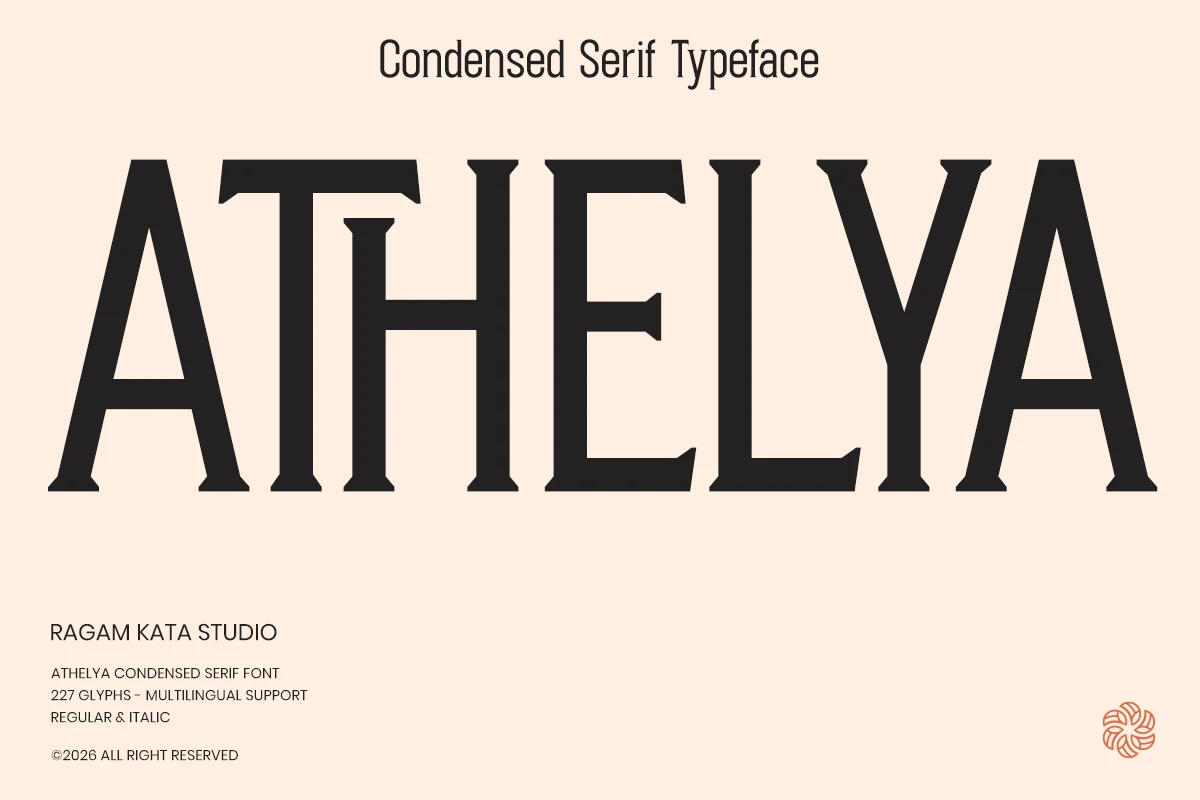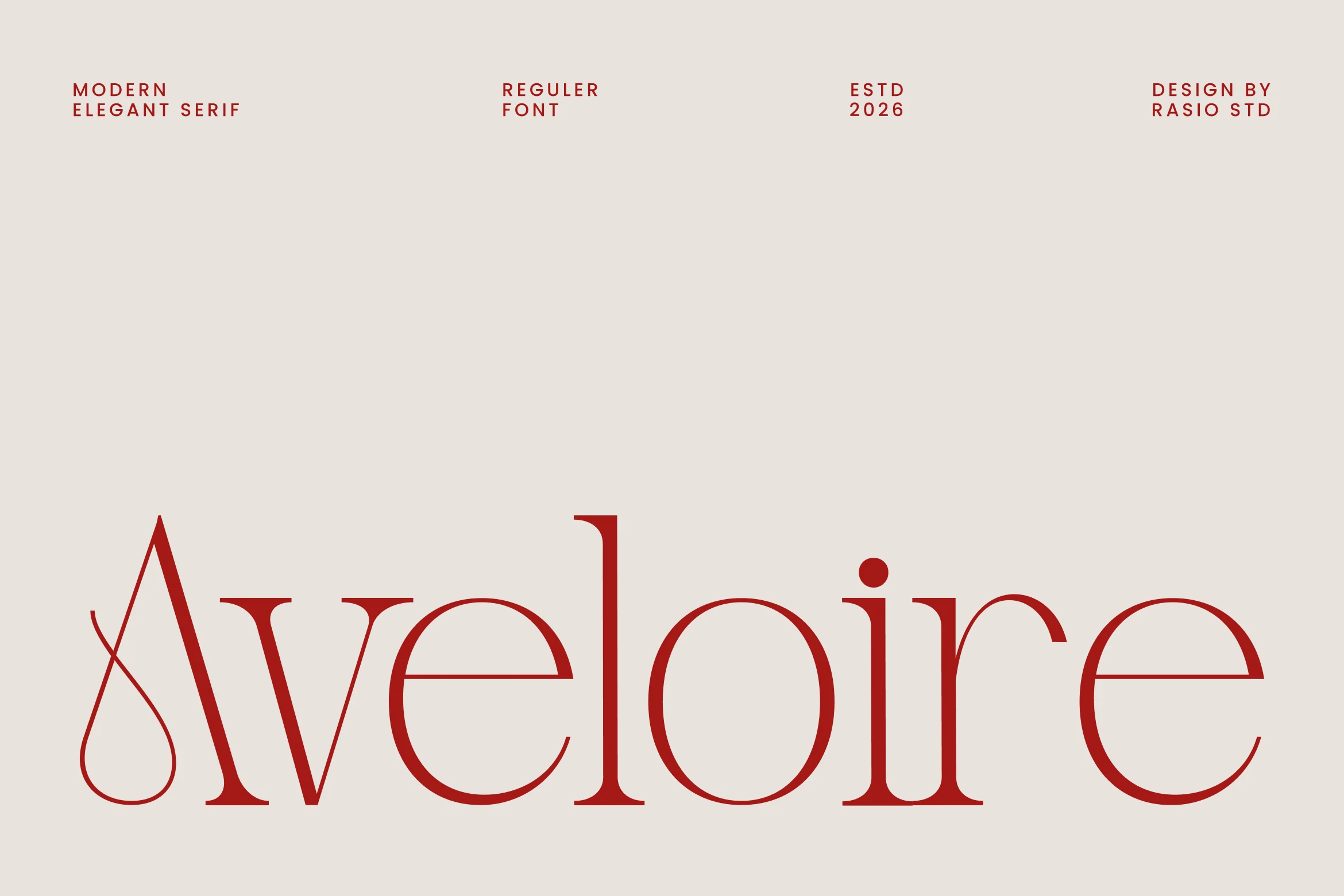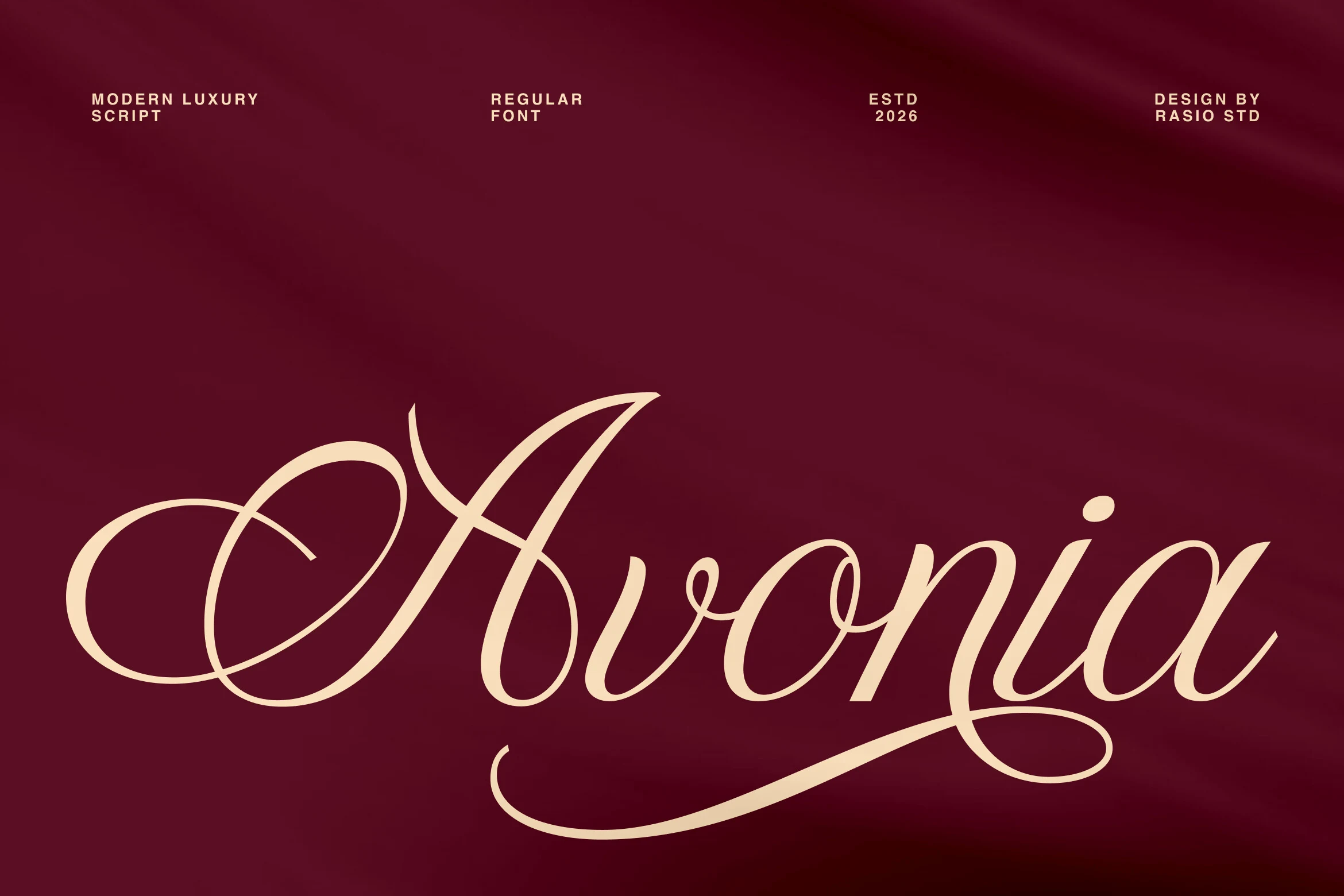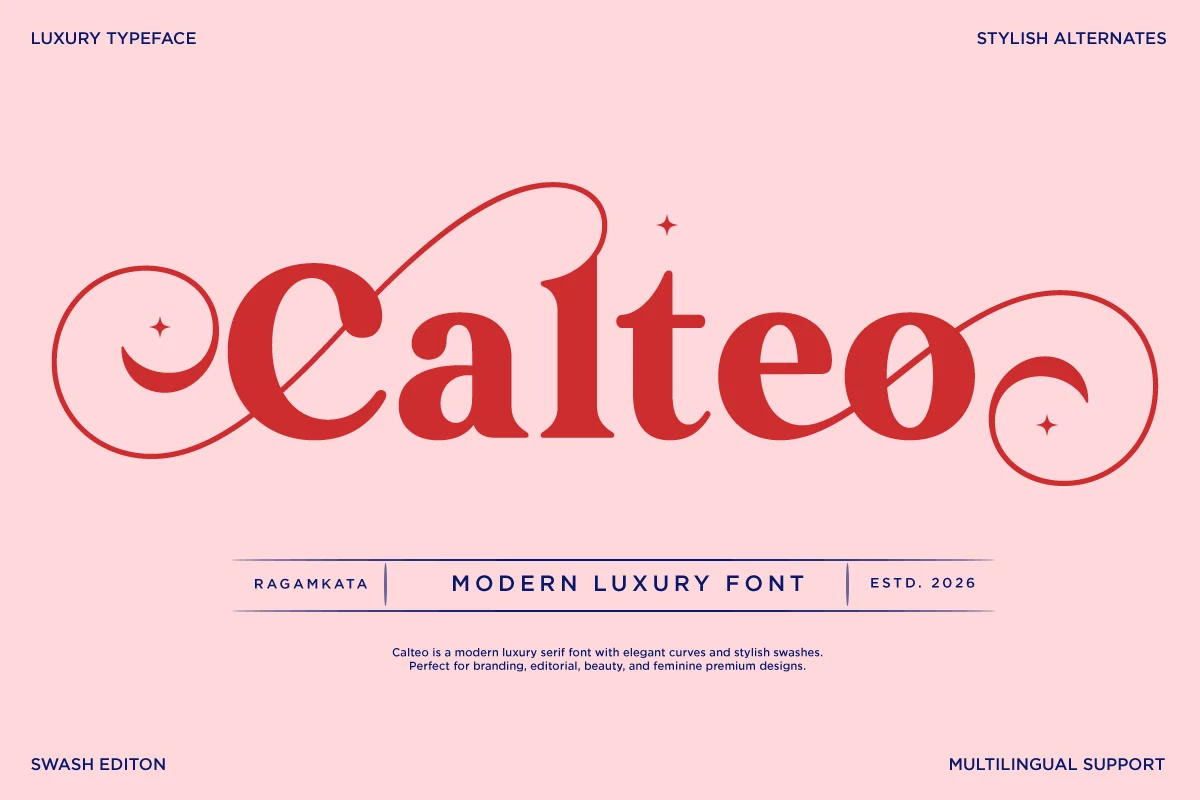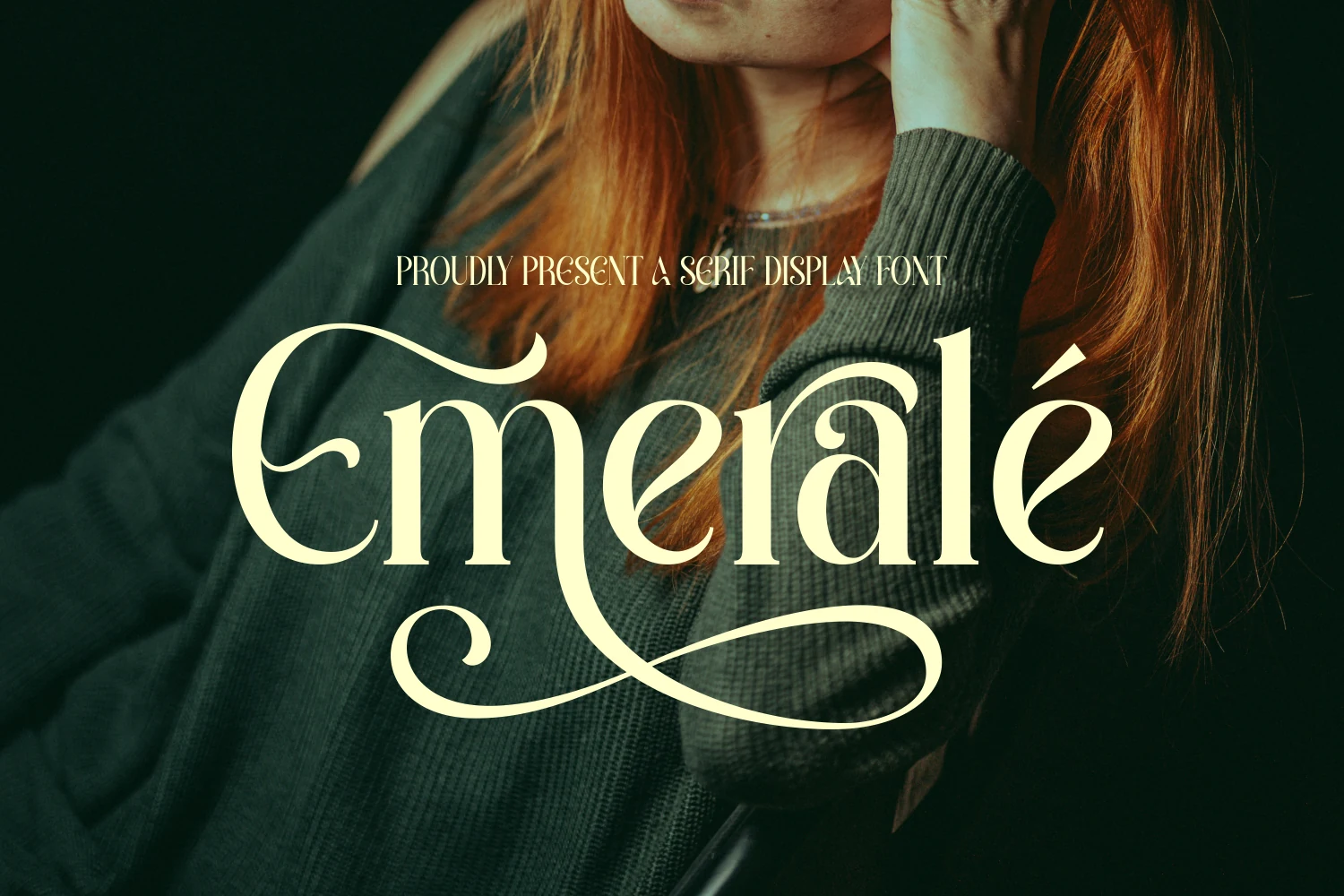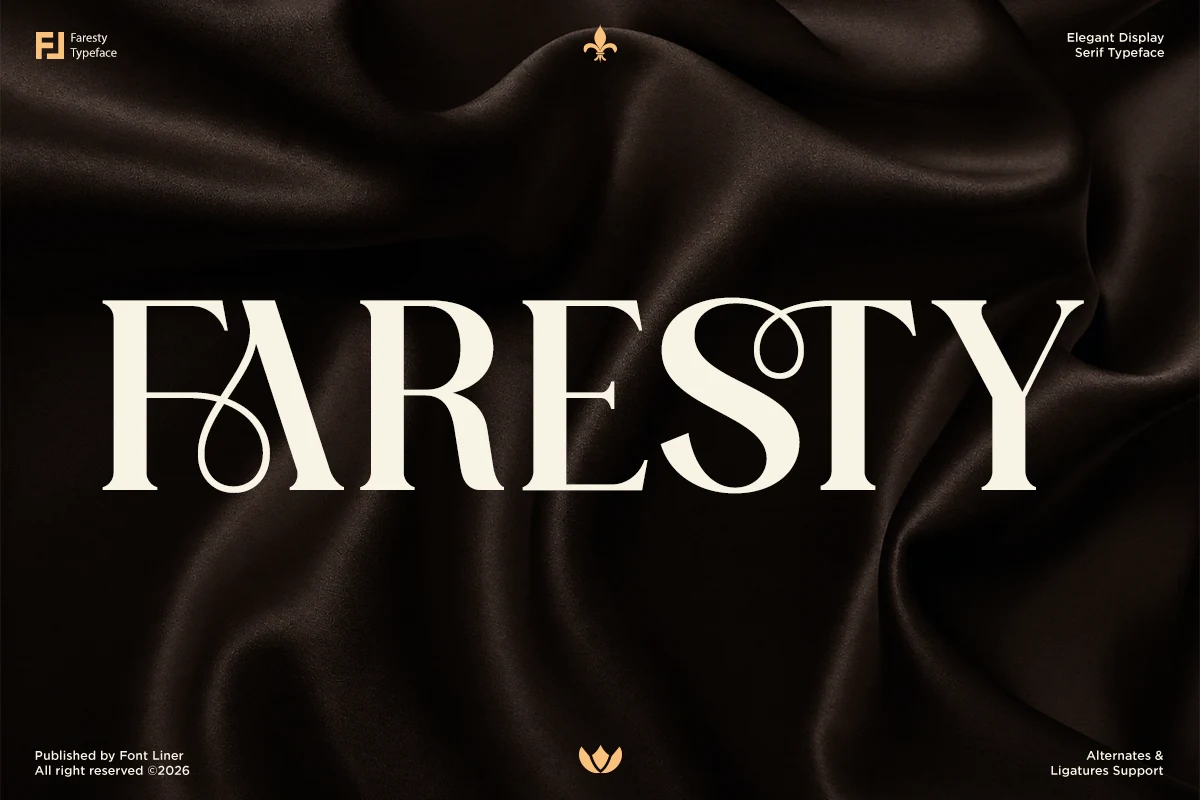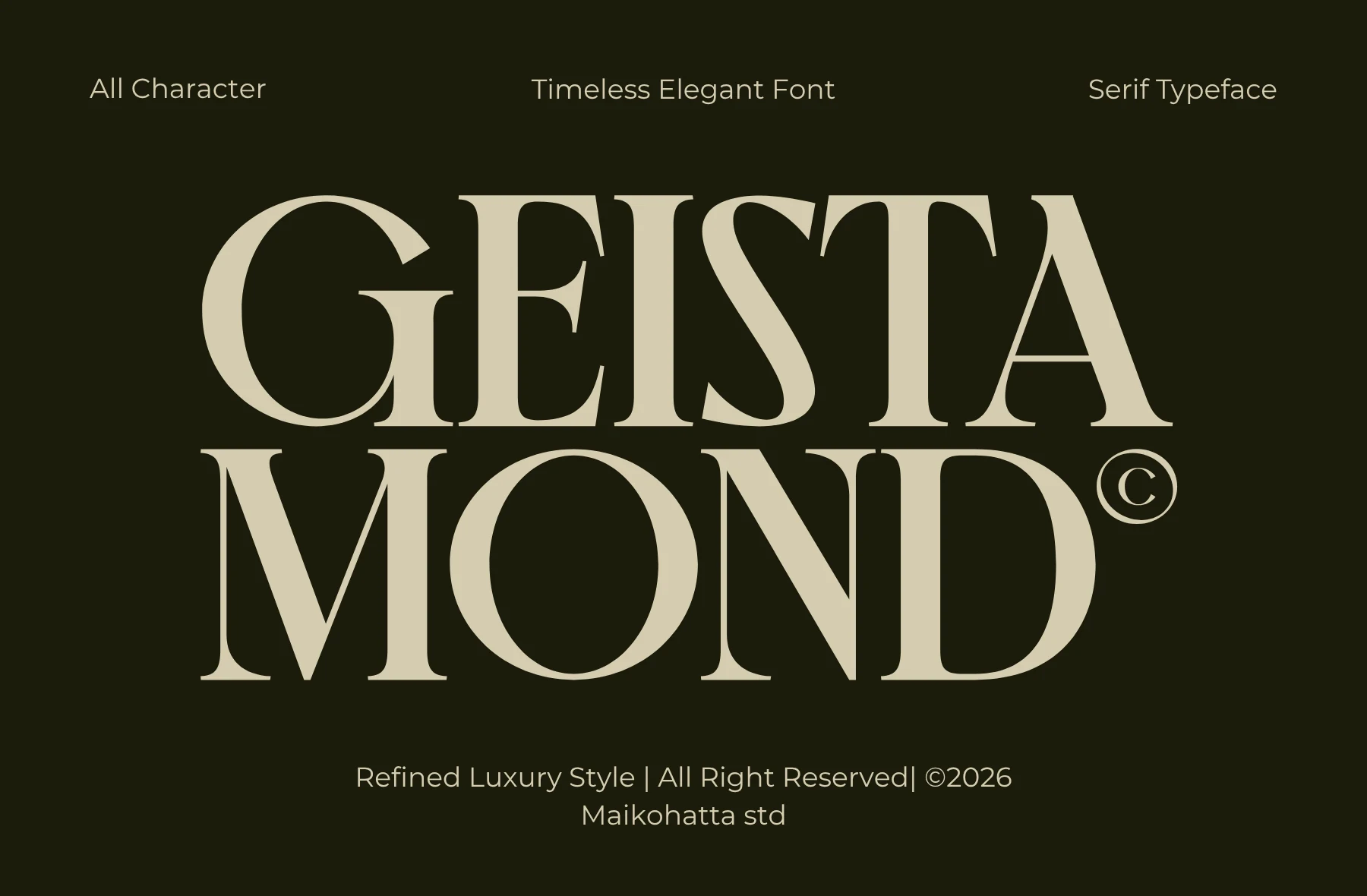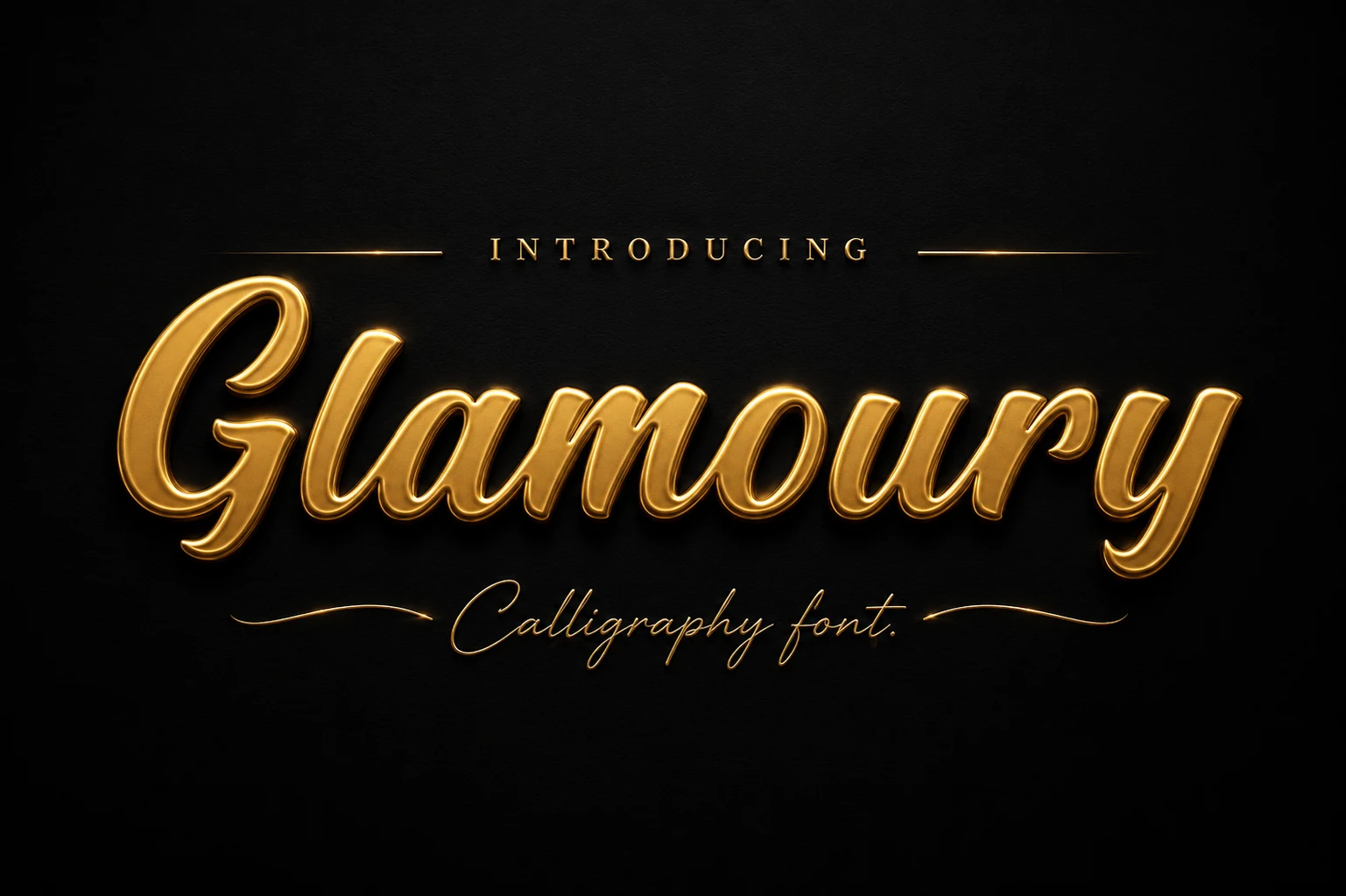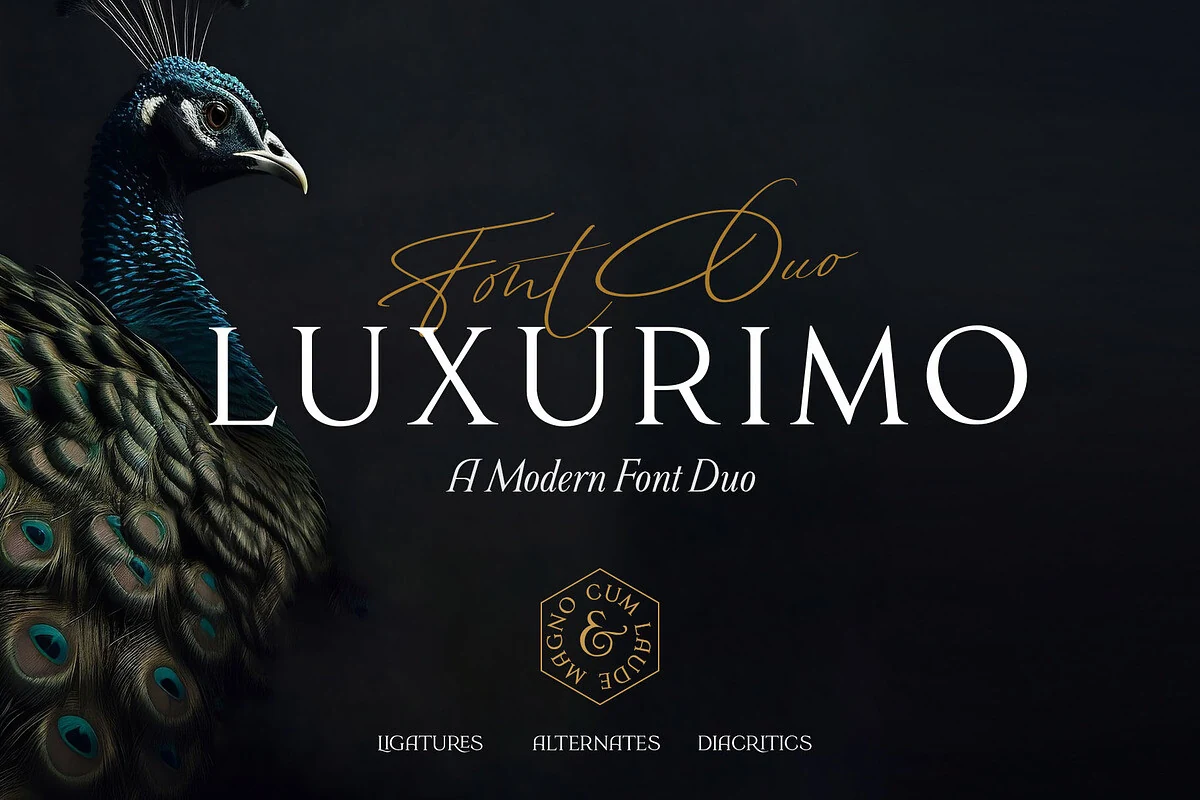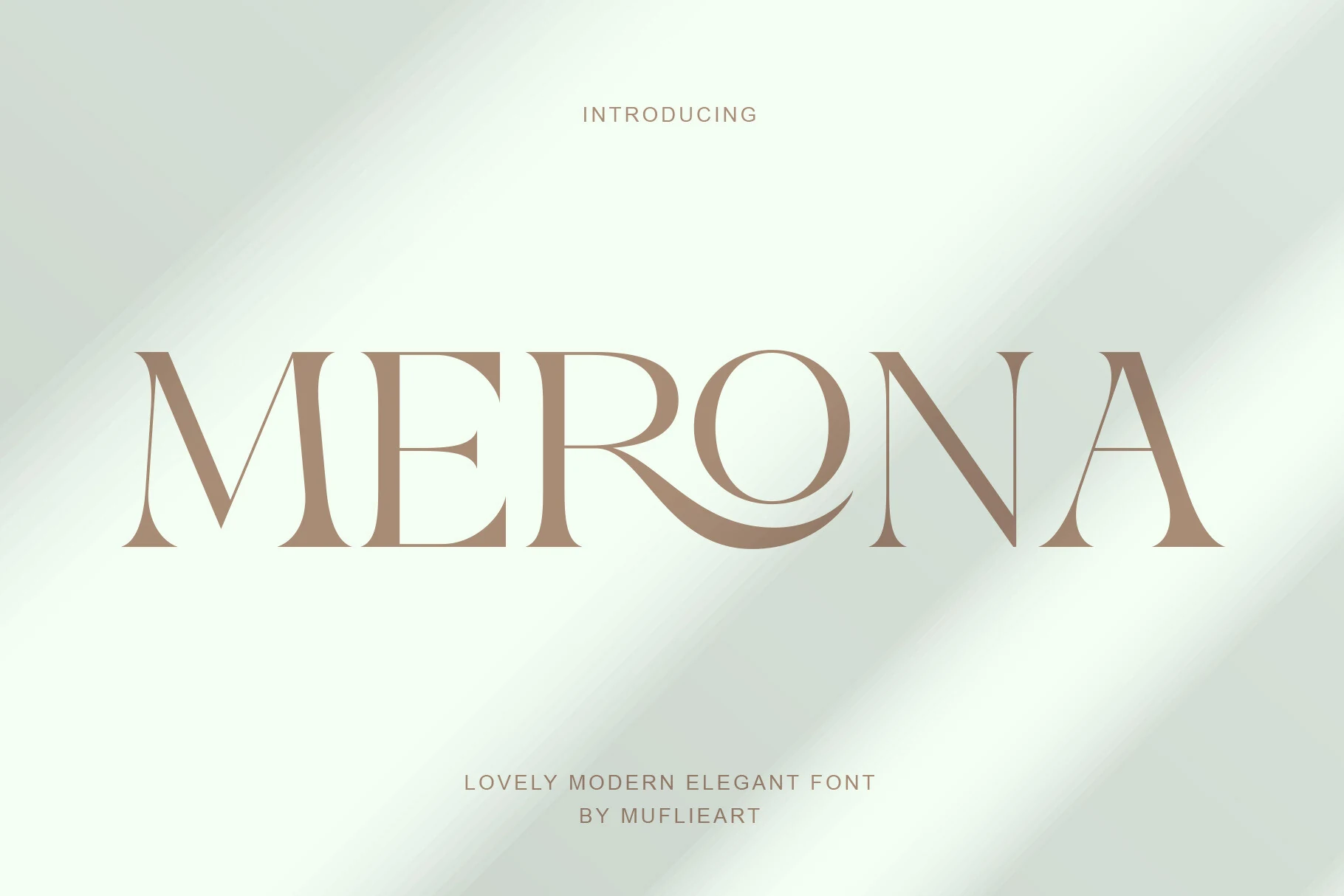
20 Luxury Branding Fonts for Premium Designs: A Practical Shortlist
Choosing from luxury branding fonts for premium designs starts with the job your typography must do. Consider the words, their final size, and the mood of the project. The options below are organized to help you compare useful directions before testing candidates in your own layout.
How to evaluate the options
Set the real headline, name, or label in each candidate. Check legibility at the final size, compare the capitals and repeated letters, and leave enough room for decorative details. Use a quieter companion font for long descriptions and other supporting text.
At a glance
Font Good starting point
Glamoury Font logos, packaging
Avonia Font logos, branding
Violyn Wedding Thivoria Font logos, invitations
Luxurimo Font logos, fashion branding
Paloma Font logos, editorial designs
Aveloire Font logos, editorial designs
Arome Font logos, packaging
Nemonty Font logos, branding
Together Font logos, invitations
Merona Font branding, editorial designs
Boserich Font logos, editorial designs
Geista Mond Font logos, editorial designs
Montegar Font logos, branding
Luxena Font logos, headlines
Patcher Font logos, editorial designs
Emerale Font logos, headlines
Wackers Font headlines, editorial designs
Athelya Font logos, headlines
Calteo Font logos, beauty branding
Faresty Font logos, packaging
Font picks
Glamoury Font for logos
Glamoury Font gold calligraphy script preview with thick rounded strokes
Glamoury Font is worth testing for logos, packaging, and beauty branding. Look for rounded letter shapes and flowing script forms when comparing it with other options. Try it at both headline and label size to judge its clarity.
Avonia Font for logos
Avonia Font cream high-contrast script preview with elegant swashes
For logos, branding, and editorial designs, consider Avonia Font. Its design draws on strong contrast between thick and thin strokes and flowing script forms. Check the thinnest strokes at the final display size.
Violyn Wedding Thivoria Font for logos
Violyn Wedding Thivoria Font preview with dark high-contrast calligraphy and large looping capitals
Violyn Wedding Thivoria Font can anchor logos, invitations, and wedding designs. The main visual cues are strong contrast between thick and thin strokes and serif details. Check the thinnest strokes at the final display size.
Luxurimo Font for logos
Luxurimo Font preview with tall serif capitals and thin signature script
Luxurimo Font is worth testing for logos, fashion branding, and wedding designs. Look for strong contrast between thick and thin strokes and serif details when comparing it with other options. Check the thinnest strokes at the final display size.
Paloma Font for logos
The Paloma Font preview with high-contrast serif capitals and elegant minimalist lettering
For logos, editorial designs, and minimal designs, consider Paloma Font. Its design draws on strong contrast between thick and thin strokes and serif details. Check the thinnest strokes at the final display size.
Aveloire Font for logos
Aveloire Font preview with red modern serif letters and graceful curved terminals
Aveloire Font can anchor logos, editorial designs, and fashion branding. The main visual cues are rounded letter shapes and decorative swashes. Try it at both headline and label size to judge its clarity.
Arome Font for logos
Arome Font preview with cream high-contrast serif lettering and graceful curved terminals
Arome Font is worth testing for logos, packaging, and wedding designs. Look for strong contrast between thick and thin strokes and serif details when comparing it with other options. Check the thinnest strokes at the final display size.
Nemonty Font for logos
Nemonty Font preview with thin white serif lettering and minimalist elegant shapes
For logos, branding, and minimal designs, consider Nemonty Font. Its design draws on serif details and display-focused letterforms. Inspect fine details before using it in small print.
Together Font for logos
Together Font preview with black high-contrast serif lettering and a curled lowercase g
Together Font can anchor logos, invitations, and beauty branding. The main visual cues are strong contrast between thick and thin strokes and rounded letter shapes. Check the thinnest strokes at the final display size.
Merona Font for branding
Merona Font preview in an elegant high-contrast serif style with airy spacing and a soft wave ligature
Final checks before using a font